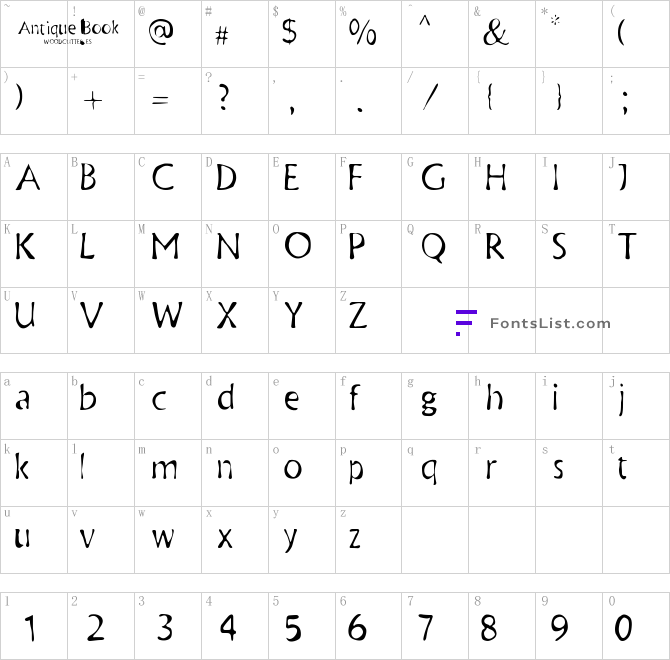
- Font Name:Antique Book
Antique-Book.ttf is a very beautiful artistic font, Antique-Book.ttf is widely used in the design and printing of various books and pictures,Antique-Book.ttf has a strong visual impact,Antique-Book.ttf is a commonly used font in newspapers, magazines and books, and is used in posters, e-commerce Poster design, store design, logo design, font design and other fields.Antique-Book.